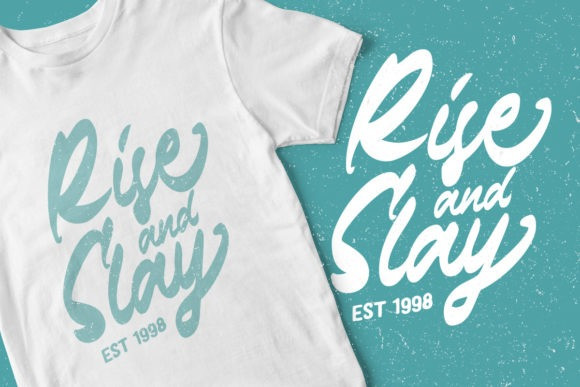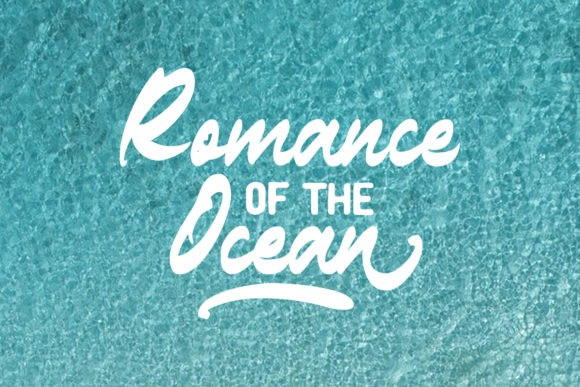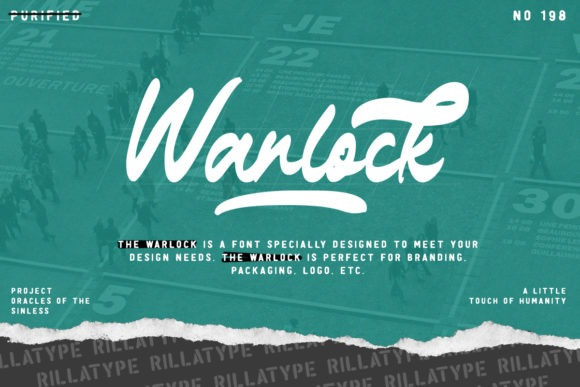
Warlock Script Font
The Warlock is a neat and flowing handwritten font, featuring a vintage touch. It is PUA encoded which means you can access all of the glyphs and swashes with ease! Fall in love with it and bring your projects to the highest levels!